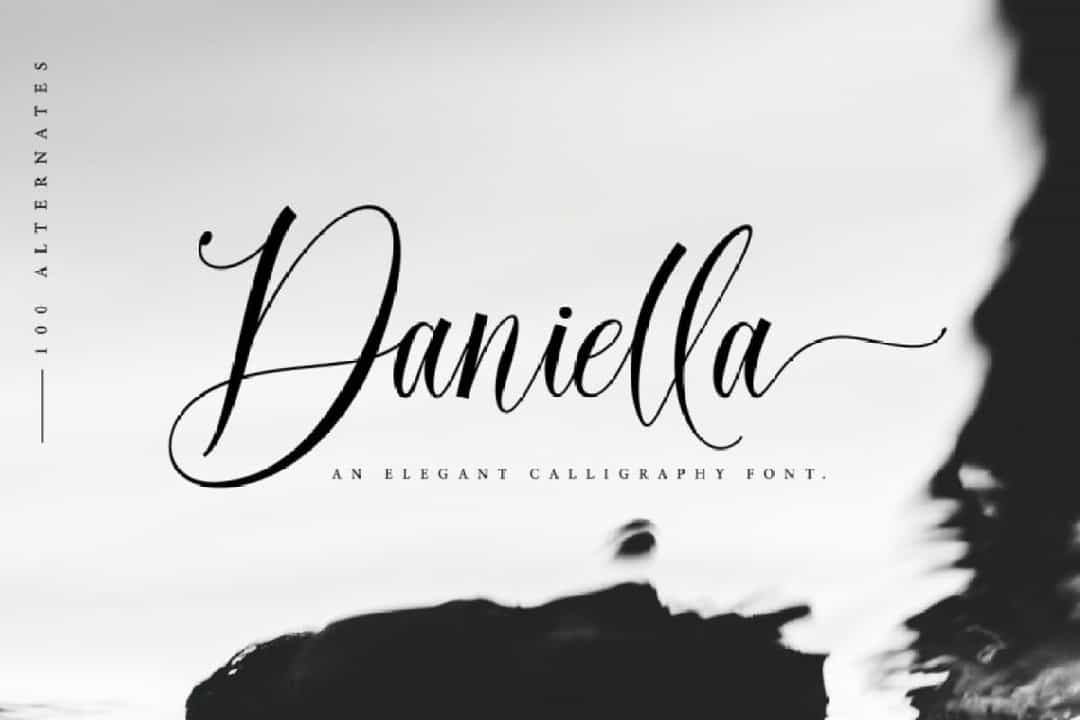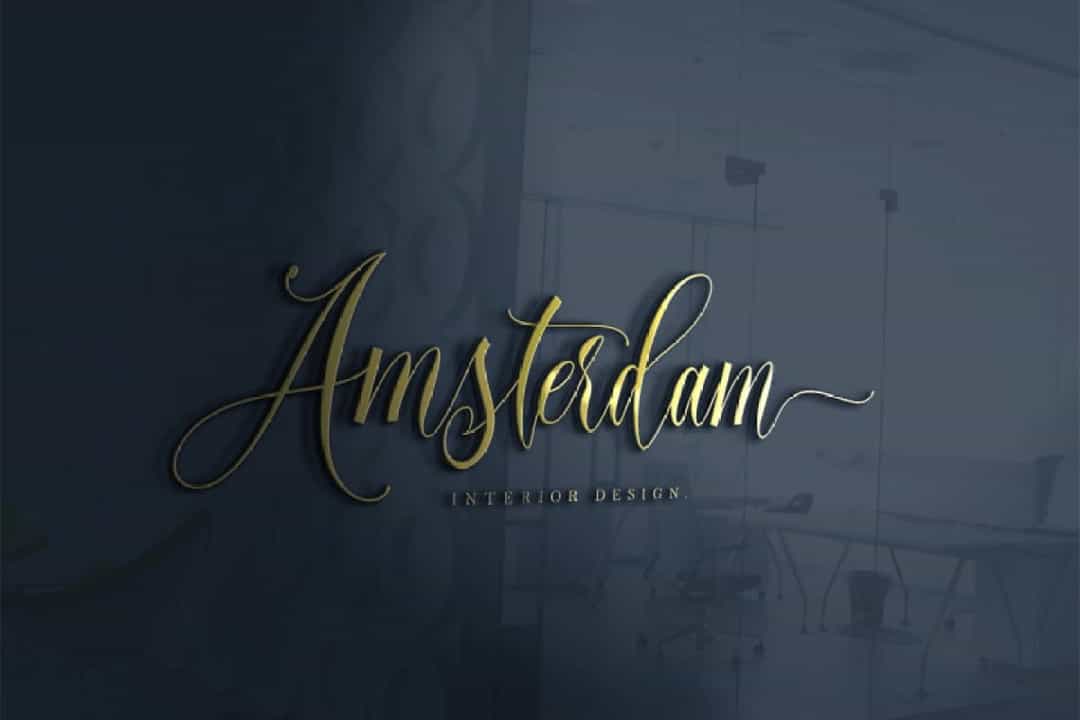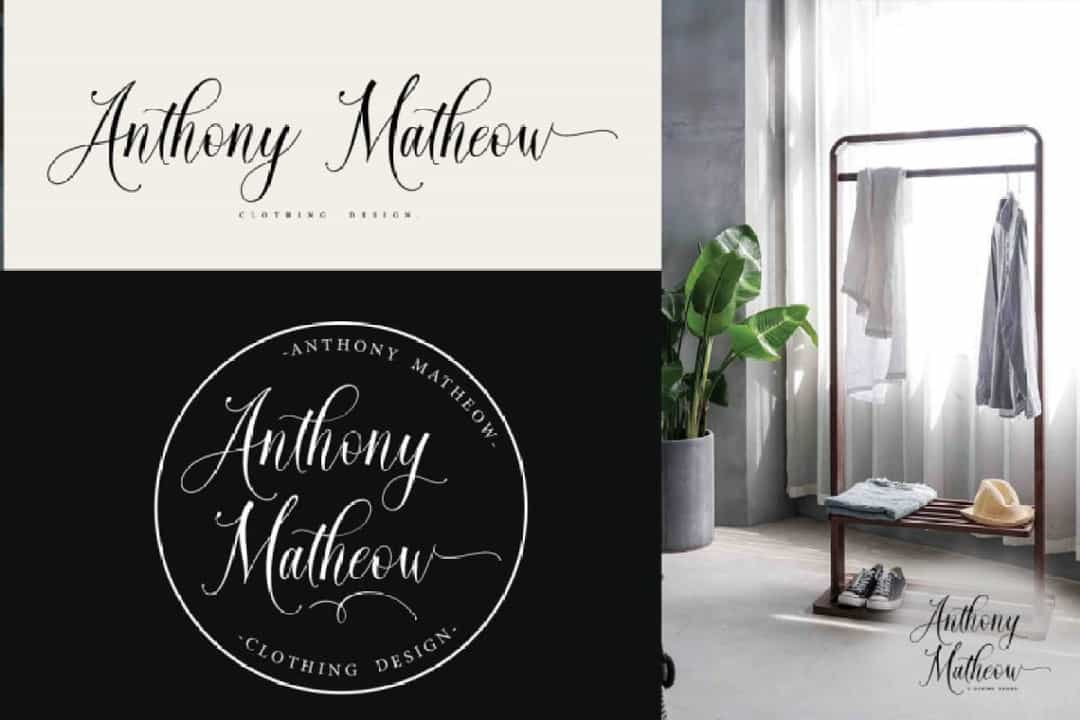
The new font we have for you is Daniella Font. Featuring a connecting script that is intended to convey sophistication, it is a thin font but at the same time, it is elegant and cozy – a great font for any project that is stylish and feminine such as wedding invitations, thank you cards, quotes, thank you cards, envelope liners, business cards and so on.